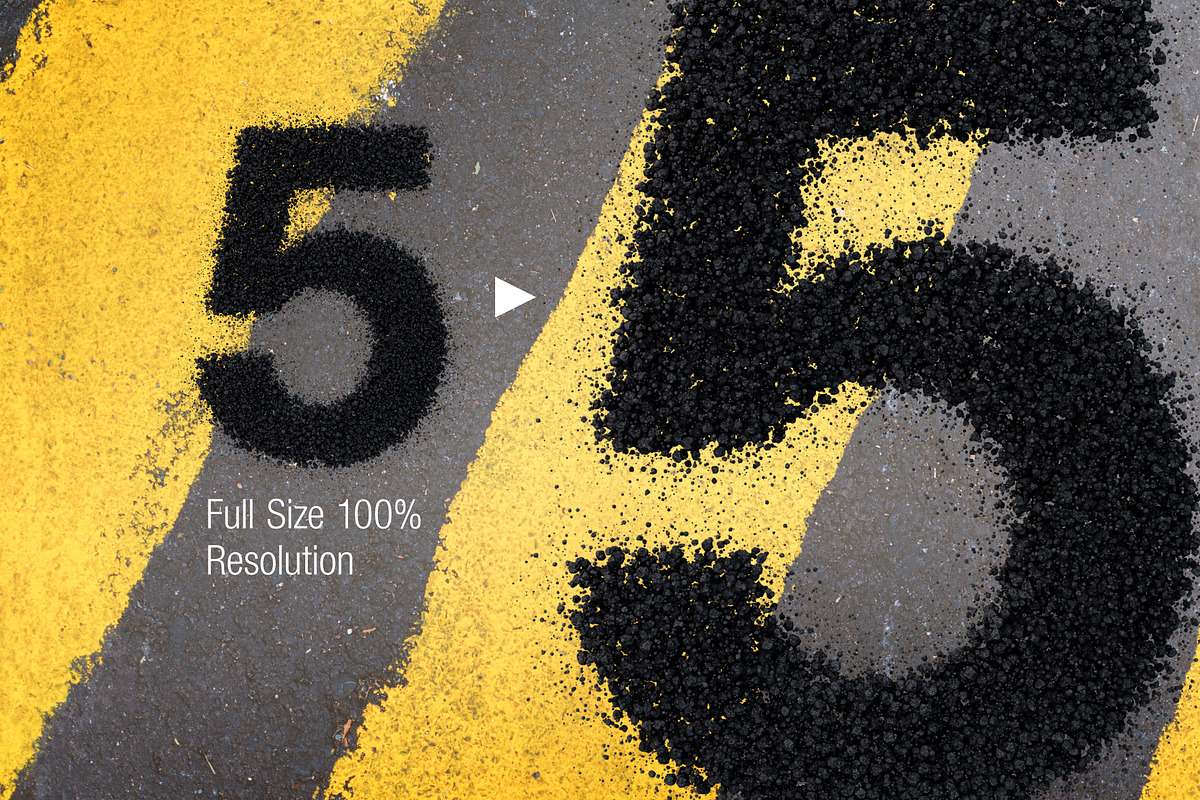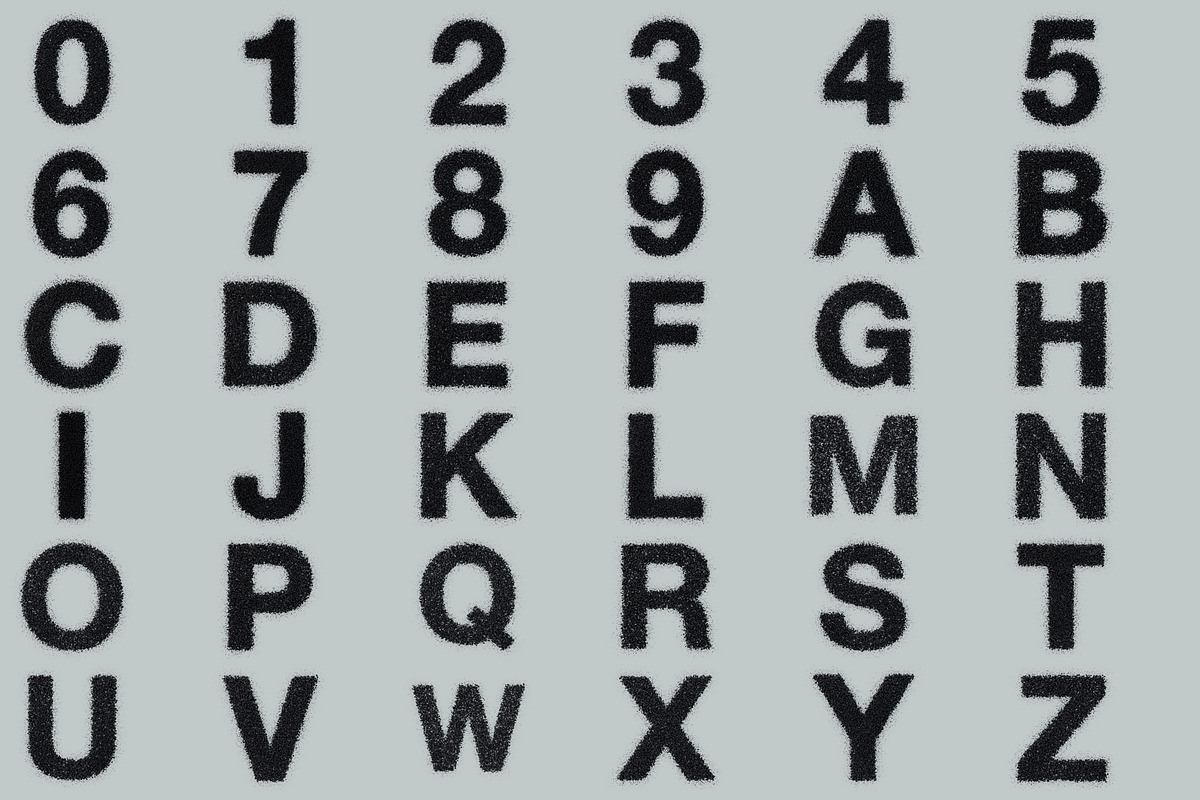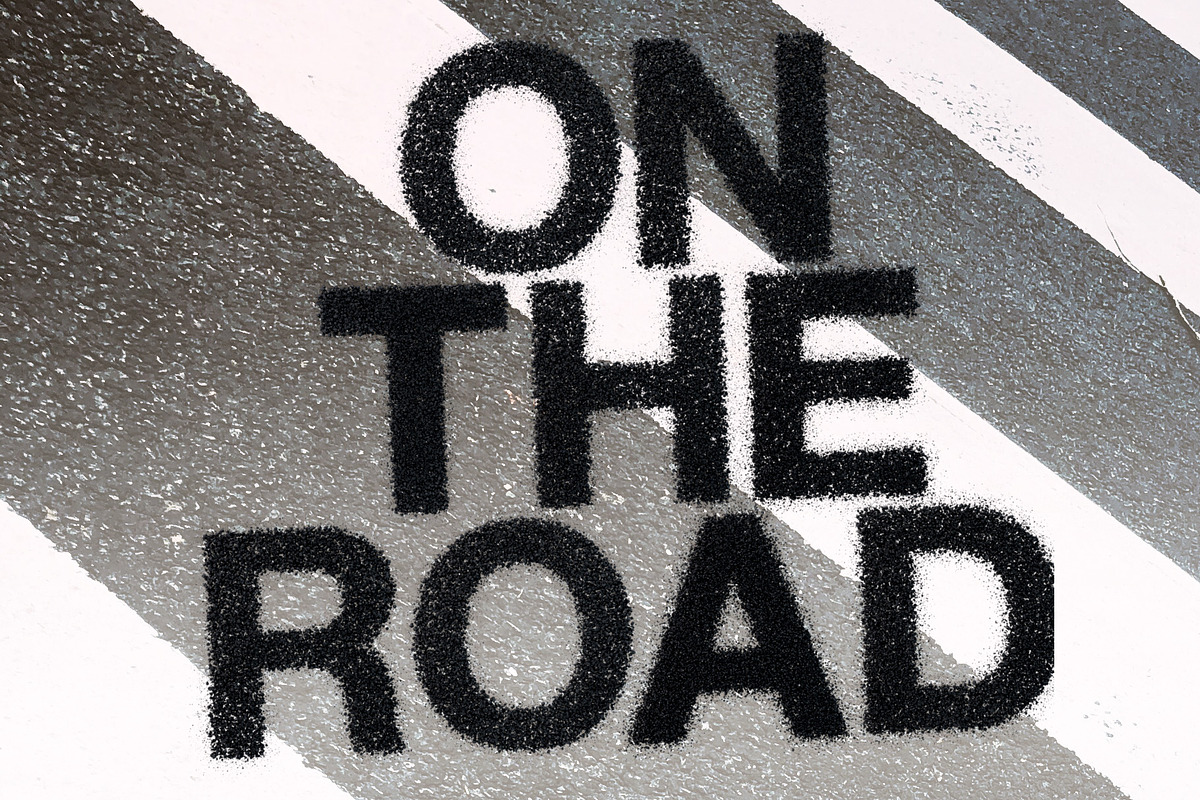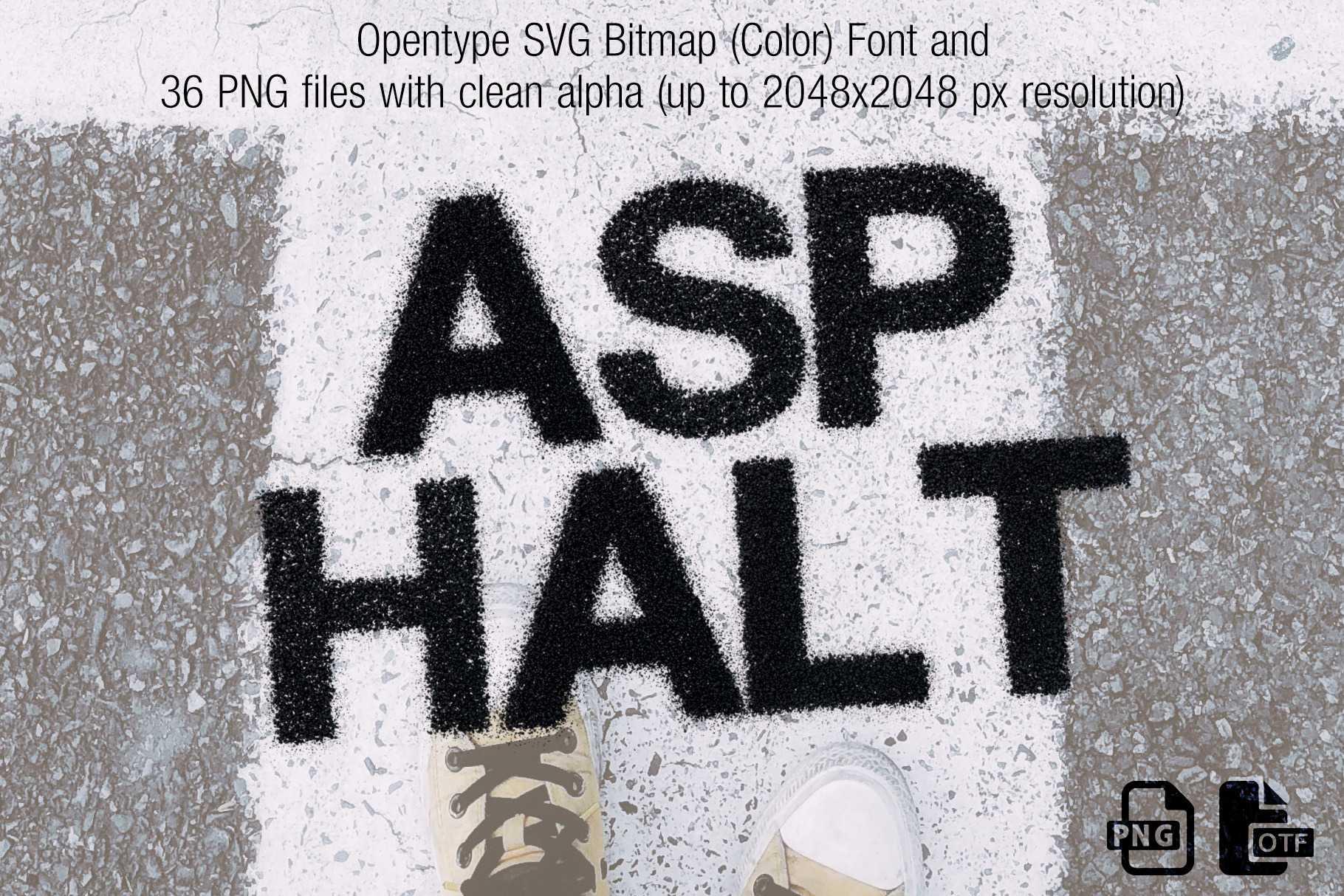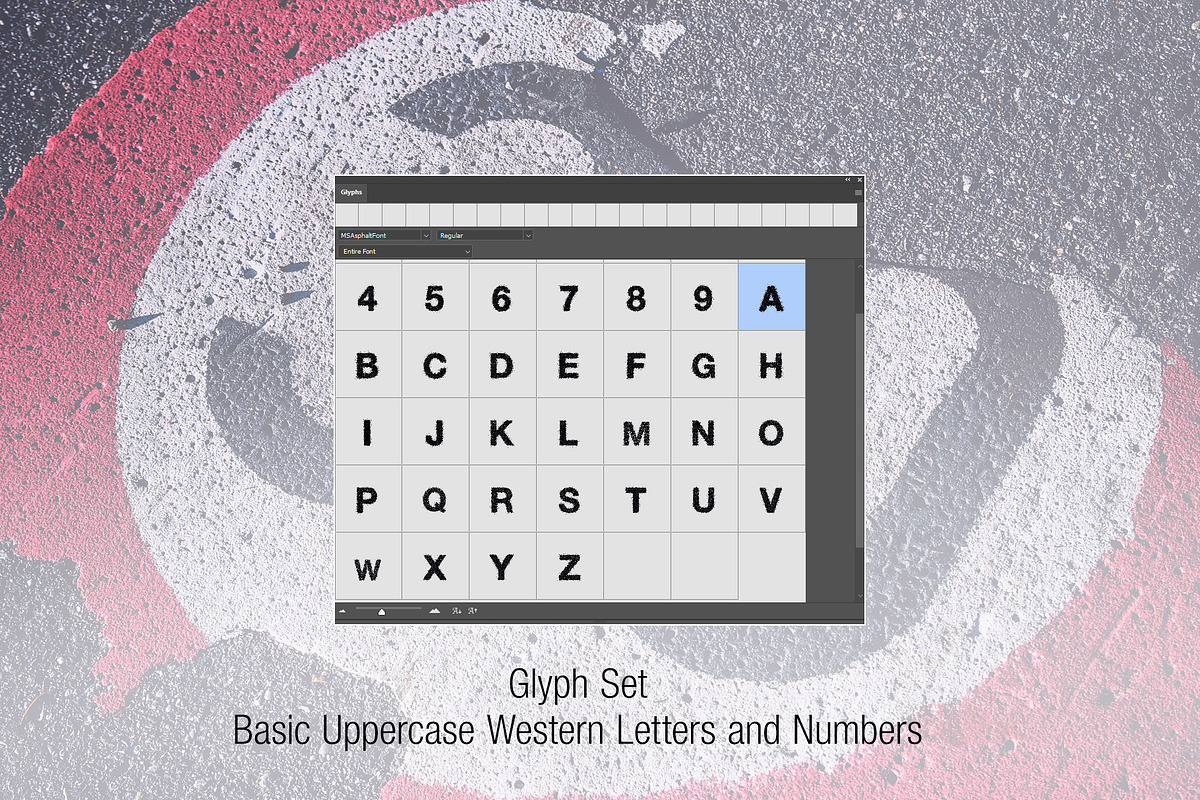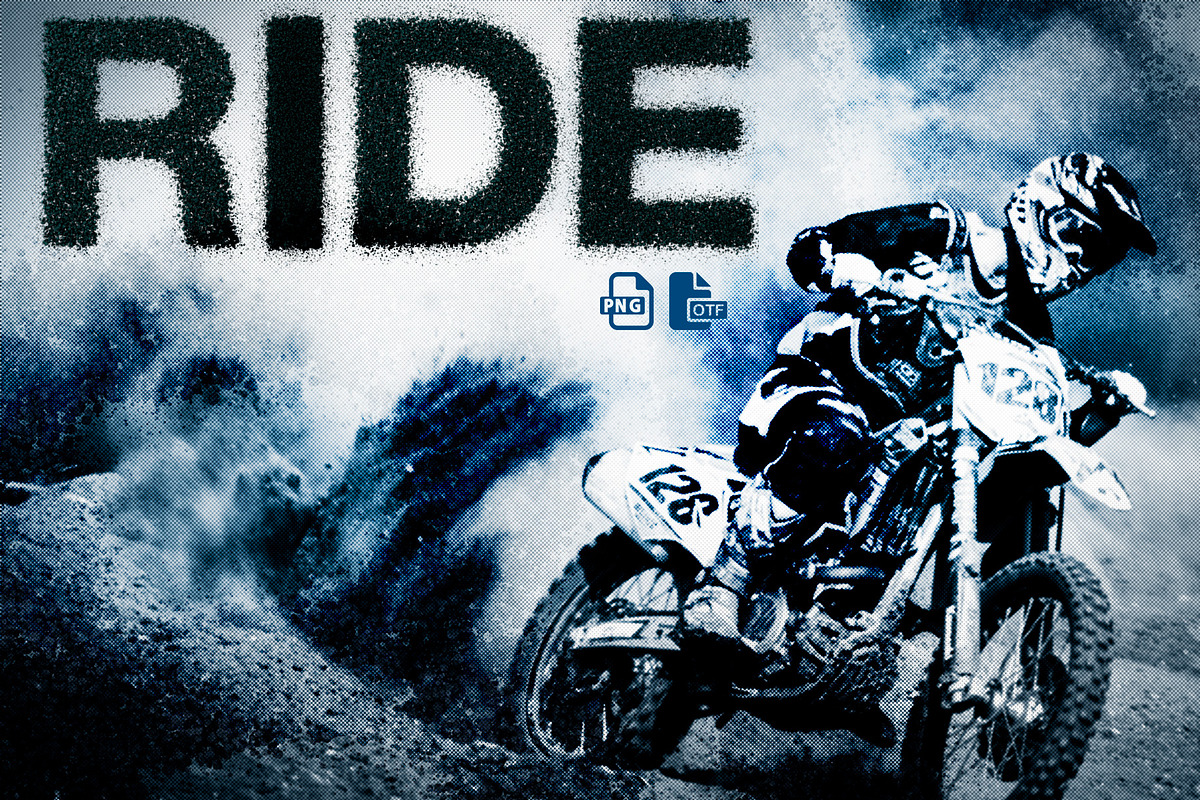
Asphalt Opentype SVG Font and PNGs
Asphalt OpenType SVG (Color) Font and PNGs
Each letter is modelled and rendered in a 3D Application, also converted into an Opentype SVG (Color Font)
- Basic western uppercase letters